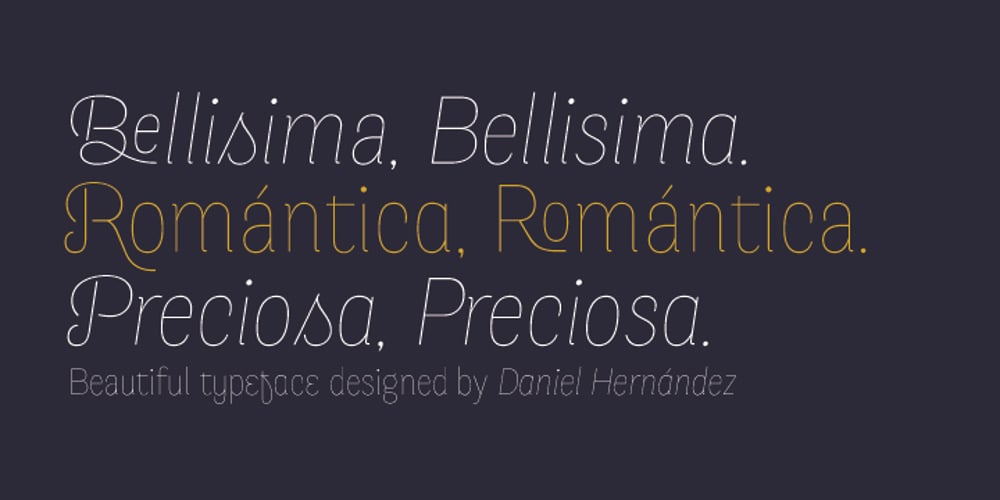
Merced Font Family was designed by Daniel Hernández and published by Latinotype. Merced contains 2 styles and family package options. A fresh, curly and delicious sans serif. Designed by Daniel Hernandez, Merced is a sans serif font that can be given different uses due to its wide variety of alternate types. Its main virtue is the endless number of possibilities for you to write words, texts or paragraphs. Languages include: Basic Latin, Western European, Euro, Catalan, Baltic, Turkish, Central European, Romanian and Pan Africa Latin.